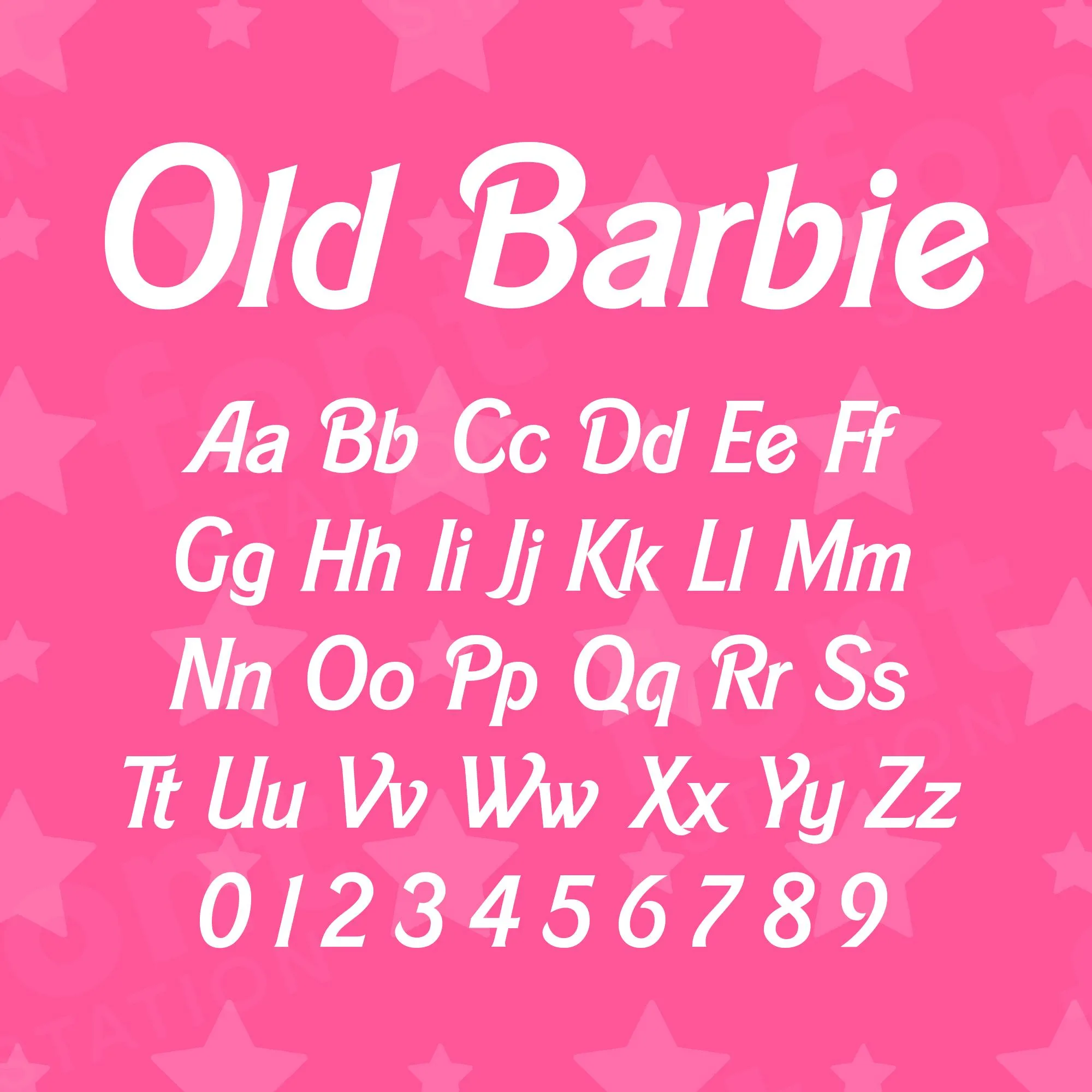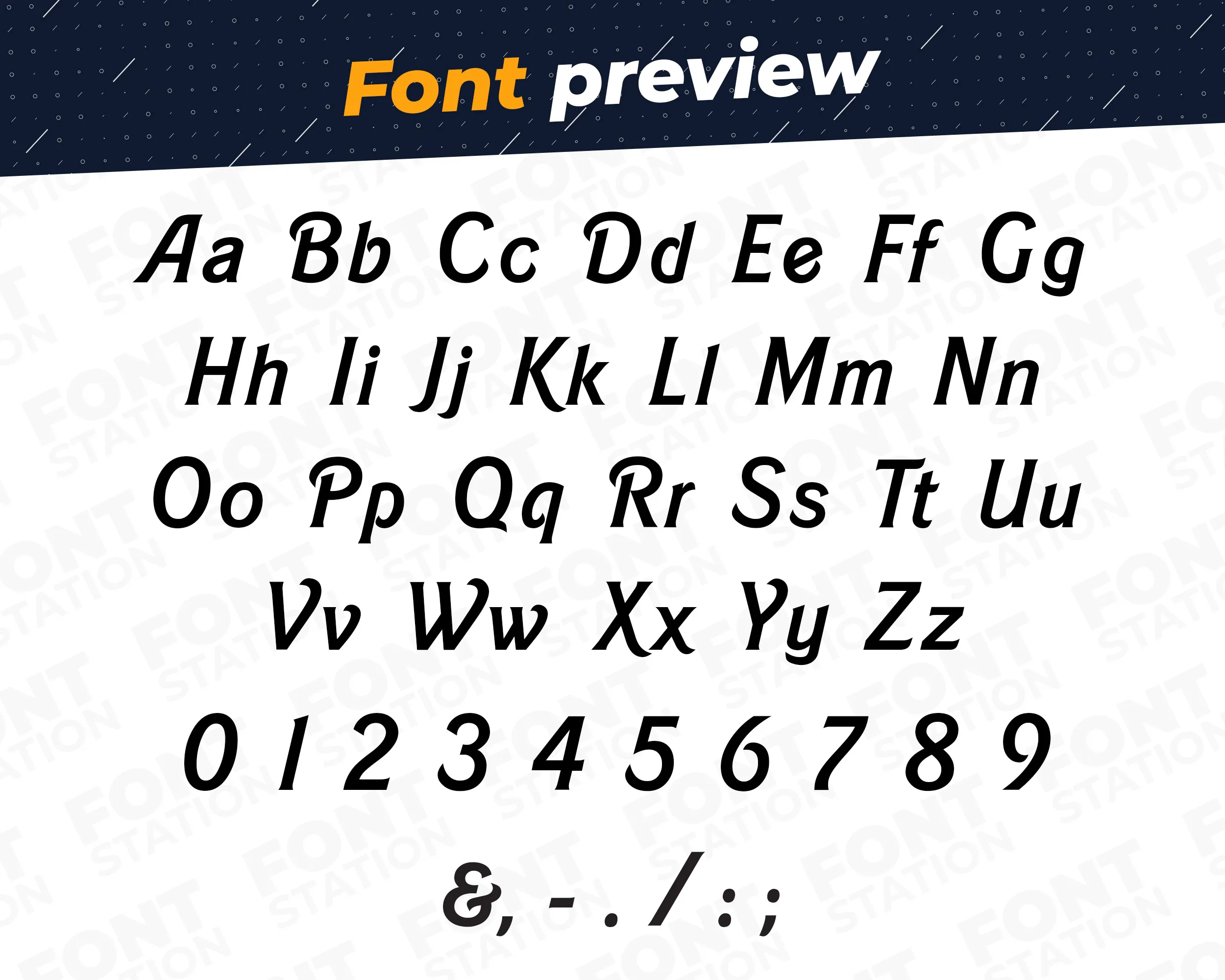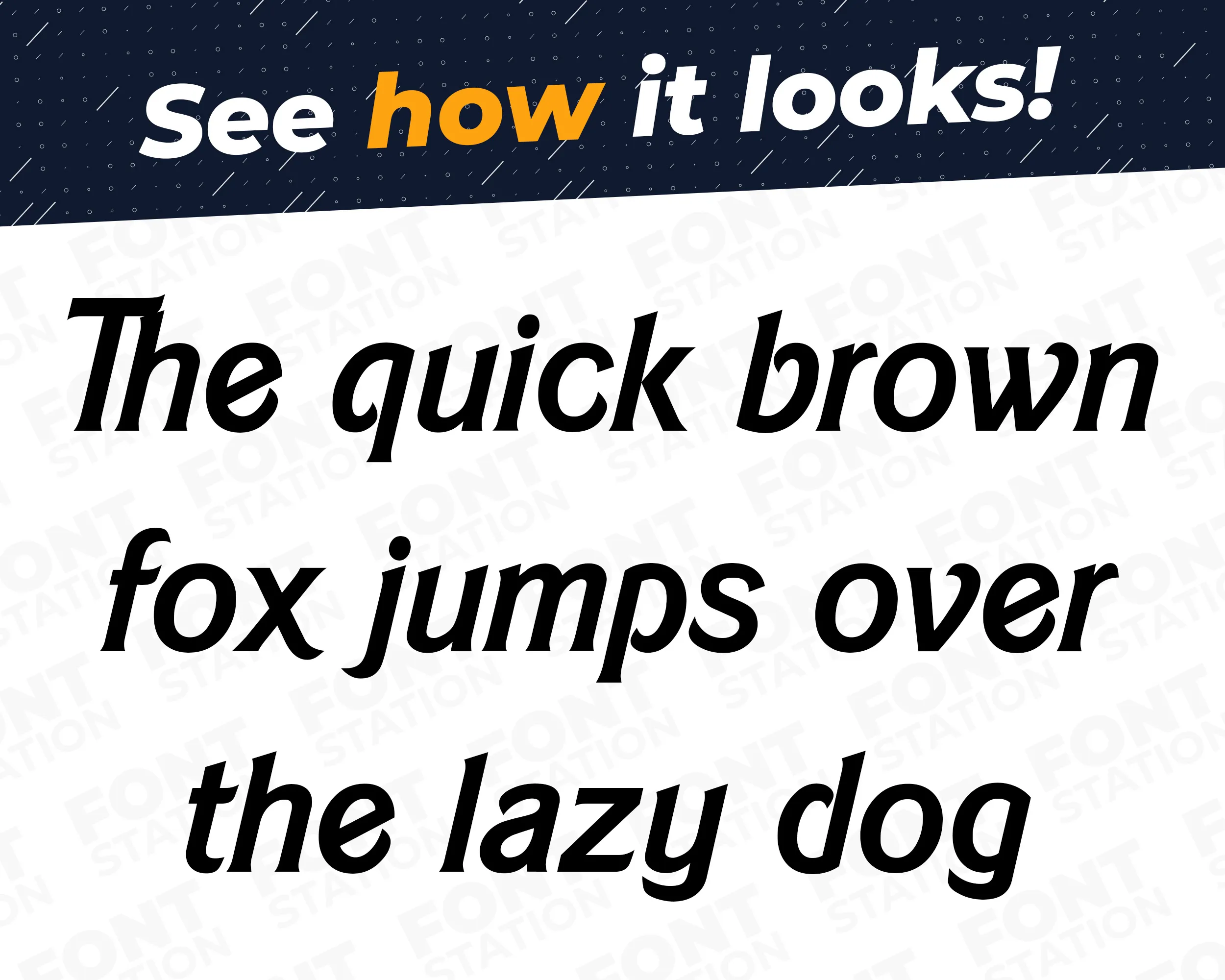
Our Princess Doll typeface, inspired from Old Barbie font
Grab your computer, tablet or other device and start creating right now with our font letters! Our Princess Doll typography is inspired from Old Barbie font, making it ideal for various digital creations (logo, word…), sublimation, cake toppers, stickers, event decorations, and more.